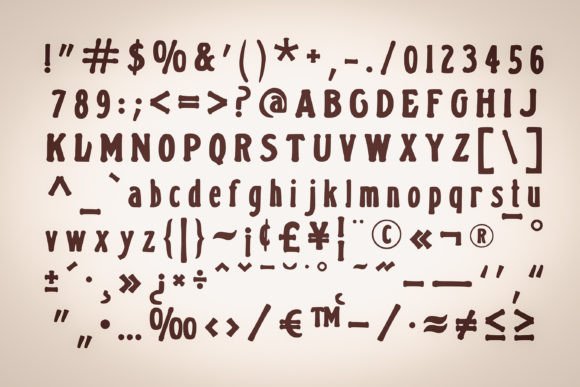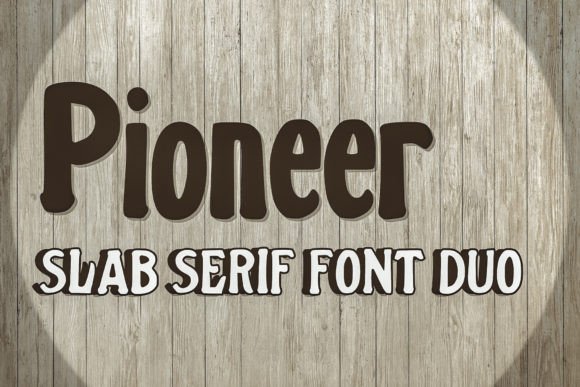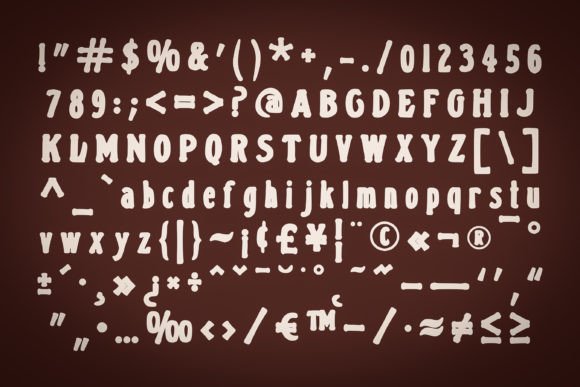
Pioneer
Pioneer: A Cool and Modern Slab Serif Font
Pioneer is a cool and modern slab serif font that brings contemporary and fresh design elements to creative projects. This versatile typeface helps make any design outstanding.
Key Features of Pioneer
• Cool Design: Offers a fresh and appealing look.
• Modern Style: Features contemporary design elements.
• Fresh Appeal: Brings current trends to designs.
• Versatile Character: Adapts well to various creative needs.
Best Uses for Pioneer
Thanks to its modern characteristics, Pioneer works especially well for:
When using Pioneer in your designs, keep these tips in mind:
• Try it for headlines or display text to showcase its cool style.
• Use different sizes to highlight its modern features.
• Let its fresh appeal enhance contemporary layouts.
• Take advantage of its versatility across various projects.
To sum up, Pioneer is an excellent choice for designers seeking a cool and modern slab serif font. Its contemporary style makes it perfect for various creative projects. Whether you’re creating digital content, designing websites, or developing marketing materials, Pioneer offers the perfect blend of freshness and versatility.
Furthermore, Pioneer’s distinctive design allows it to shine in contexts where modernity is key. For instance, from branding to social media content, this font can elevate your projects with its contemporary style. Also, its cool yet readable appearance works particularly well in designs that aim to make a fresh impact.
In conclusion, Pioneer truly captures the essence of modern design in slab serif typography. Its ability to enhance creative projects shows how well it can serve various design needs. Therefore, for those wanting to add a touch of contemporary style to their work, Pioneer can make any design outstanding with its unique appeal. Ultimately, it’s perfect for designers aiming to make a cool, modern impact across creative projects.